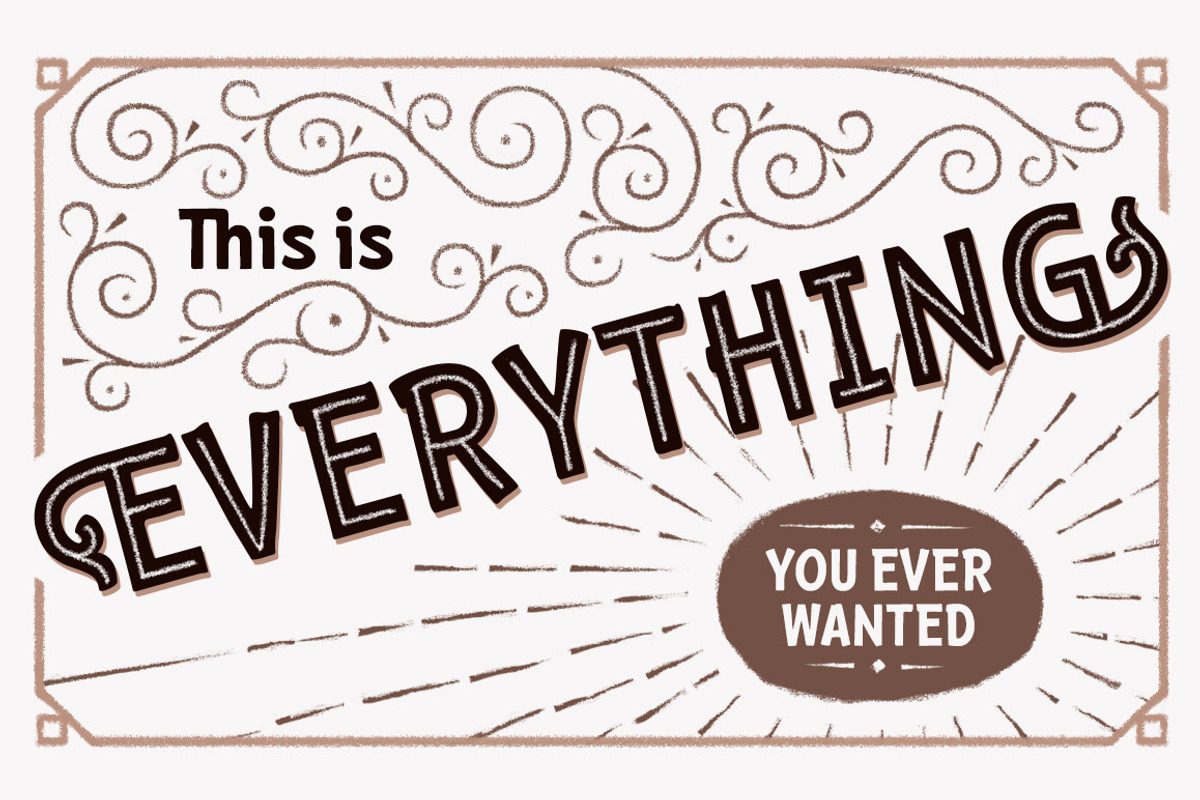
Barbariska Regular & Oblique
Handcrafted grotesque with a friendly character. Two weights in three styles. Weights: Regular and Oblique. Styles: normal, rough1, rough2.
Weight and shape of the letters allows use the font to solve any graphical problems. Package design for food or cosmetic products. Posters or music cover. Logos. Prints on sweatshirts or t-shirts. Children’s books or comics. Barbariska could be used in all sorts of projects.
Support: cyrillic, сyrillic extended, latin, latin extended (Western European, Central European, South-East).
OpenType features
- Contextual alternates
- Old style numbers
- Fina and init for capitals letters.